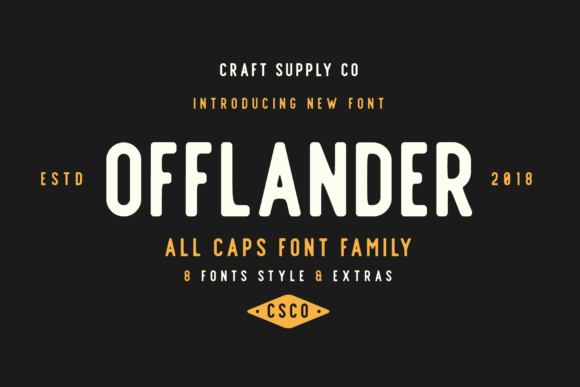
Introducing Offlander Family Font: Unleash Your Inner Maverick and Push Design Boundaries!
Welcome to the world of Offlander Family Font, a daring and captivating font family that shatters the mundane and invites you to embark on a design odyssey like no other. This remarkable font collection, meticulously crafted by the visionary artists at craftsupplyco, ignites the imagination and transforms ordinary projects into extraordinary masterpieces. Immerse yourself in the limitless possibilities of Offlander's 8 all-caps fonts, each possessing a distinct personality and boundless versatility.
Offlander's striking sans serif style exudes modernity and sleekness, making it the perfect choice for projects that demand attention. Whether you're crafting logos that command presence, designing websites that captivate visitors, or creating social media posts that ignite engagement, Offlander rises to the occasion. Unleash your creativity and watch as your designs transcend the ordinary, leaving an indelible mark on all who encounter them.
With Offlander, you're not just downloading a font; you're acquiring an indispensable design tool that empowers you to break free from creative constraints. Its versatility knows no bounds, effortlessly adapting to a myriad of design landscapes. From branding and marketing materials that exude professionalism to eye-catching headlines and body text that captivates readers, Offlander seamlessly integrates into your design vision, enhancing it with its distinct charm.
Offlander's intuitive nature makes it an accessible font for designers of all skill levels. Whether you're a seasoned graphic designer seeking to elevate your projects or a novice venturing into the world of design, Offlander meets you where you are, guiding you toward design excellence. Embrace the simplicity of its all-caps structure and let your creativity soar, knowing that Offlander will faithfully translate your vision into reality.
But Offlander doesn't stop at being a mere font; it's an experience that ignites the senses and leaves a lasting impression. Its sharp angles and bold strokes evoke a sense of adventure and exploration, urging you to push the boundaries of design and create works that resonate with your audience. Offlander is more than a font; it's a passport to a world where creativity reigns supreme.
So, embrace the allure of Offlander Family Font and let your designs embark on an extraordinary journey. Unleash your inner maverick, defy conventionality, and redefine the boundaries of design. With Offlander, the possibilities are infinite, and the only limit is your imagination.